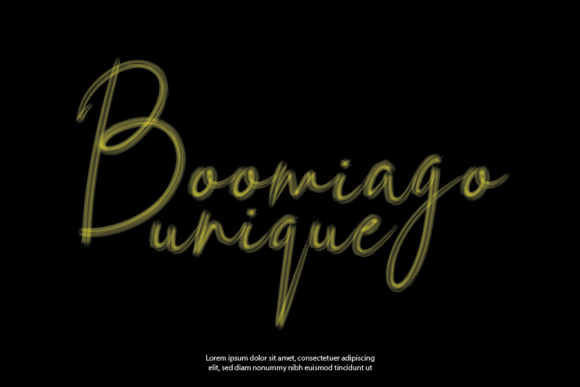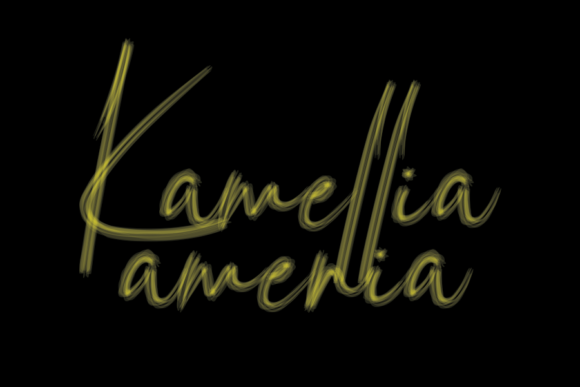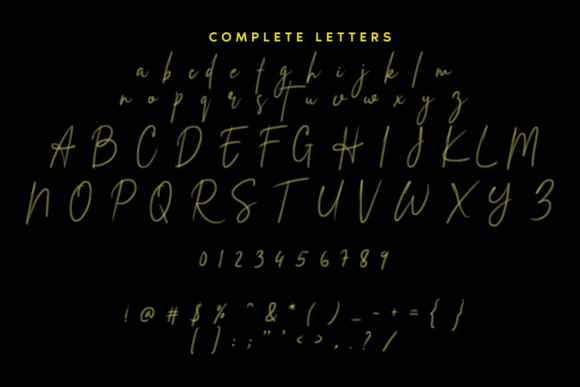
Introduction to Raittamia Smaart Font
Do you remember the moment when you first saw a beautiful handwritten font and instantly knew you had to use it in your next creative project? For many designers, this is a moment of pure inspiration, and it’s exactly what happens when you lay eyes on the stunning Raittamia Smaart Font. This gorgeous, flowing handwritten font is a game-changer for any designer looking to add a touch of elegance and sophistication to their designs.
With its versatility and high-quality design, Raittamia Smaart Font is the perfect addition to your design resource library. Whether you’re working on a wedding invitation, creating beautiful stationary art, or crafting eye-catching social media posts, this font is sure to impress. And the best part? You can download it for free, making it an accessible design resource for designers of all levels.
So why is Raittamia Smaart Font so valuable for designers? For starters, its transparent background makes it easy to use with any design element, and its high-quality design ensures that your projects will stand out from the crowd. With Raittamia Smaart Font, you’ll be able to create stunning designs that showcase your creativity and attention to detail.
Key Features of Raittamia Smaart Font
- High-quality, unique font design suitable for various creative projects, including graphic design and digital art.
- Includes a transparent background, allowing for seamless integration with various backgrounds and designs.
- Features a large character set, including Latin, Cyrillic, and Greek alphabets, making it suitable for multilingual projects.
- Designed with high-resolution graphics in mind, with a recommended resolution of 300 DPI for optimal quality.
- Perfect for designers and artists looking for a distinctive, high-quality font to elevate their creative projects.
Honest Review: Raittamia Smaart Font
As a designer, I’m always on the lookout for high-quality design resources to enhance my creative projects. Recently, I had the chance to work with the Raittamia Smaart Font, and I’m excited to share my honest review.
- ✨ High-quality font with a unique, modern design
- ✨ Excellent for creating engaging titles and headings
- ✨ Easy to use and customize
- ✨ Transparent background makes it easy to use with any design style
- ⚠️ Limited character set, which may not be ideal for long-form text
- ⚠️ Not suitable for body text, as it may be too bold and attention-grabbing
Overall, I’m impressed with the Raittamia Smaart Font. Its unique design and high-quality feel make it an excellent choice for creative projects where a bold, modern aesthetic is desired. While it may have some limitations, I think it’s a great design resource to have in your arsenal.
Tips for Getting the Most Out of Raittamia Smaart Font
To get the most out of Raittamia Smaart Font, use it with a transparent background to create a seamless design. Experiment with different font sizes and colors to find the perfect combination for your creative project.
Common Use Cases for Raittamia Smaart Font
Raittamia Smaart Font is suitable for a wide range of creative projects, including logos, icons, graphics, and typography-based designs. Its high-quality design makes it an excellent resource for designers and artists.